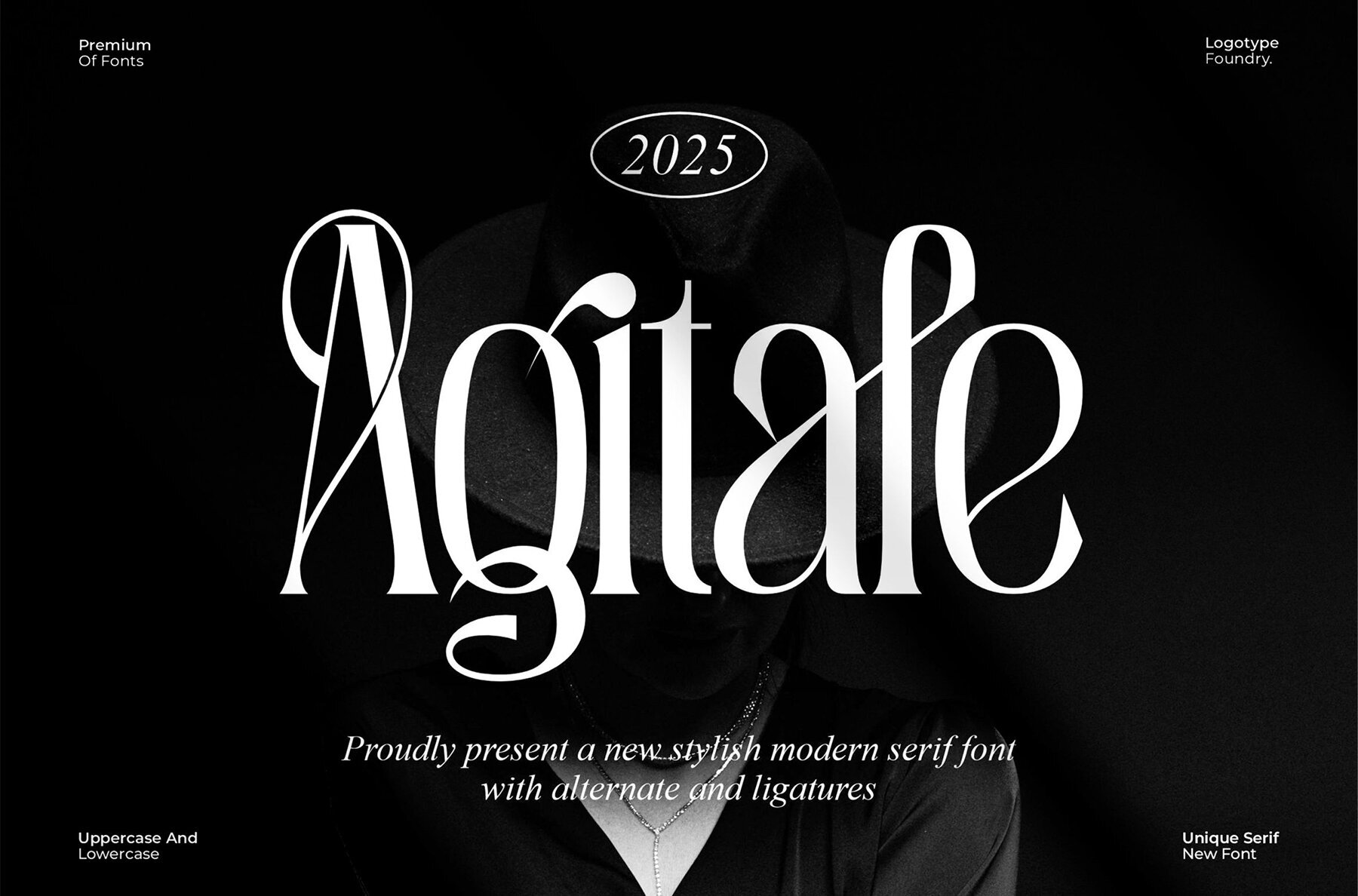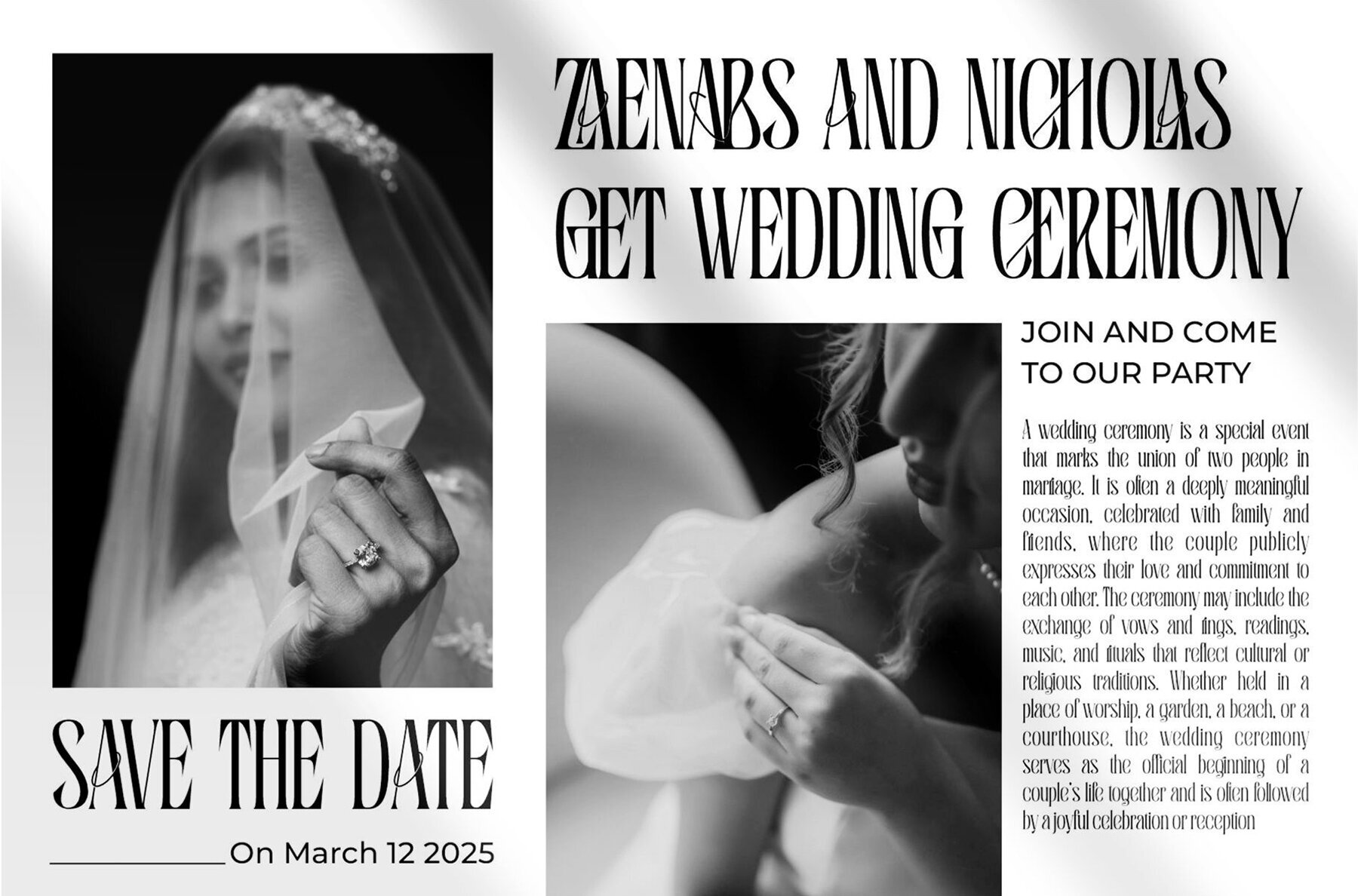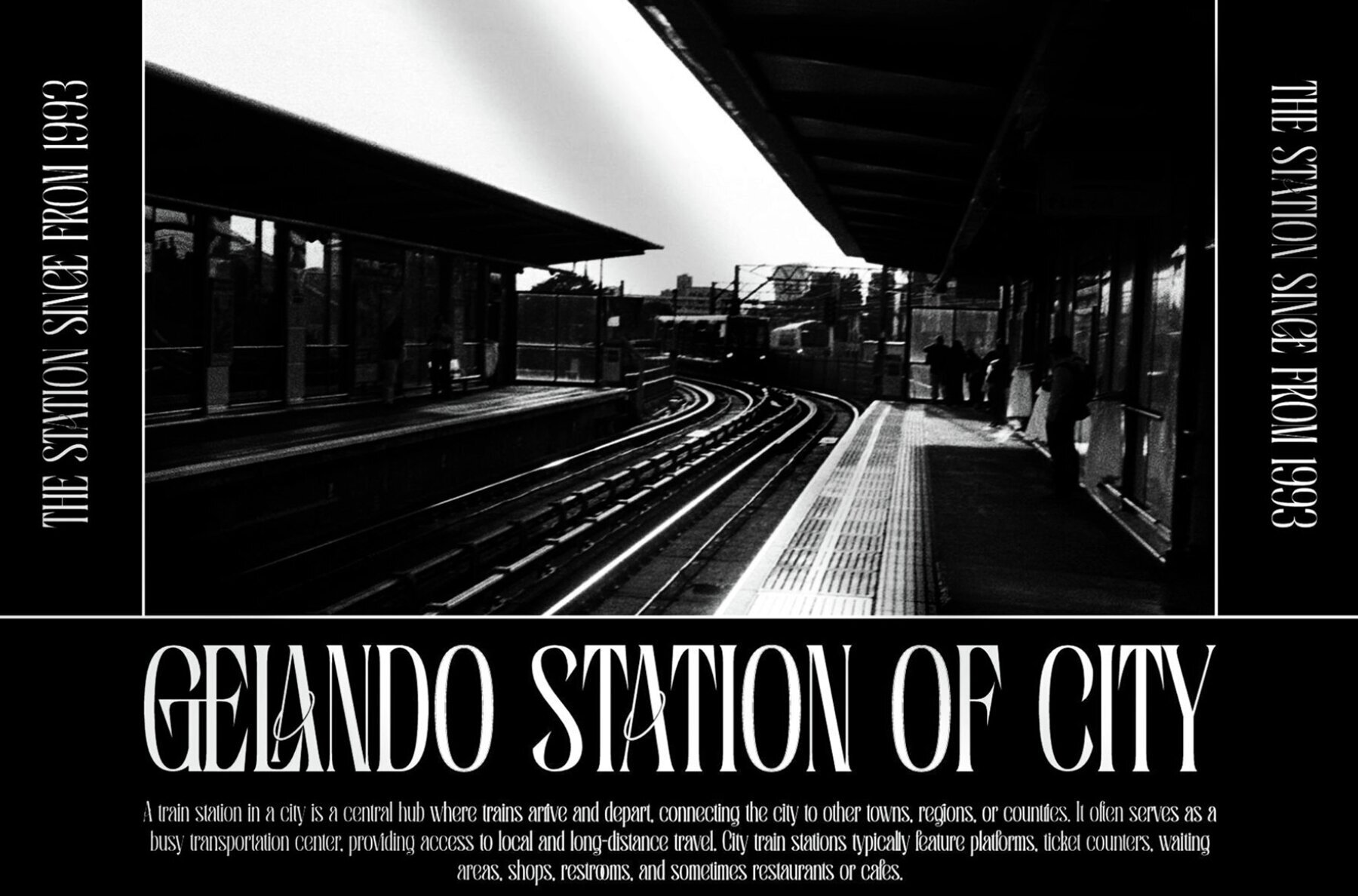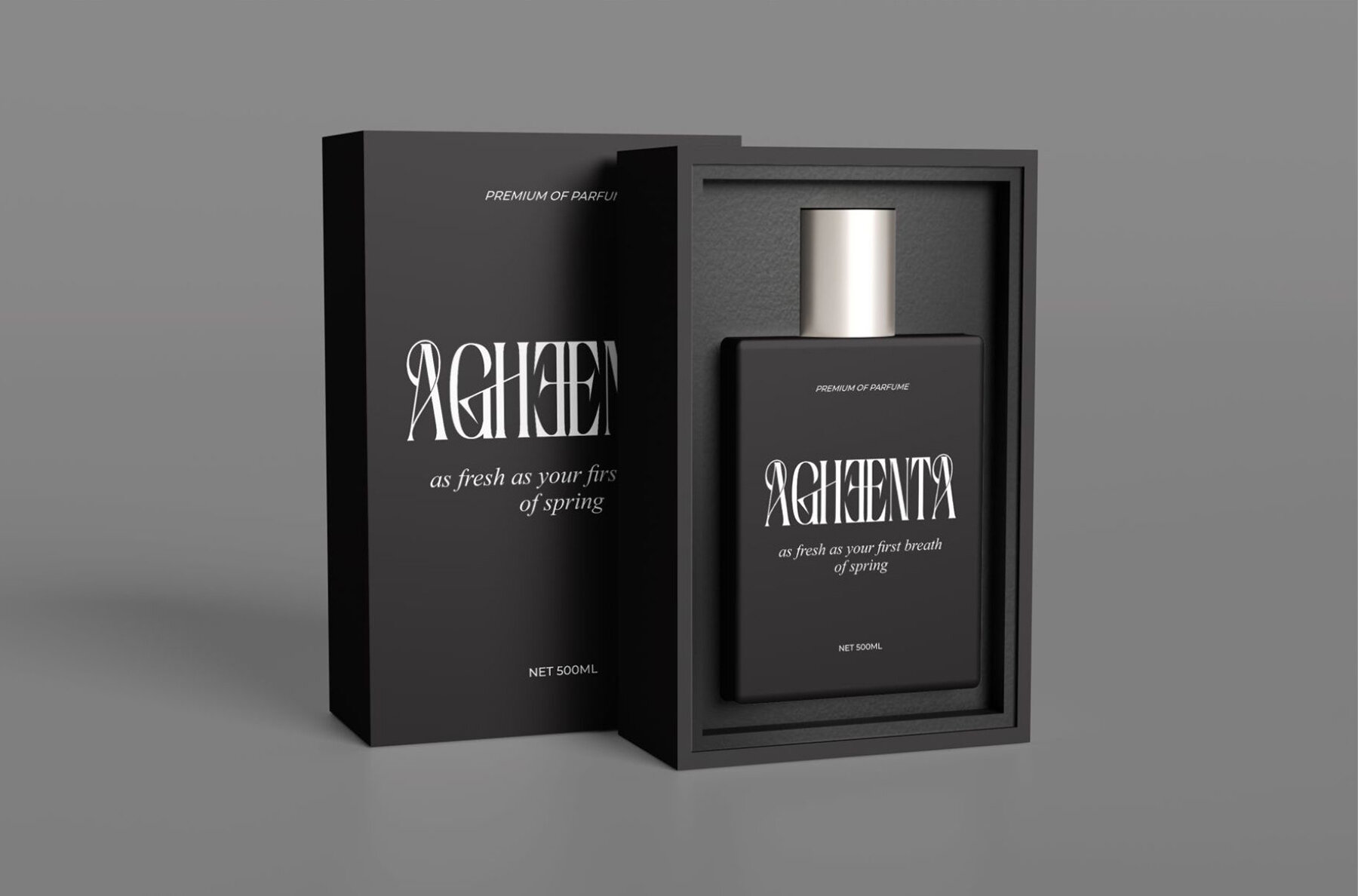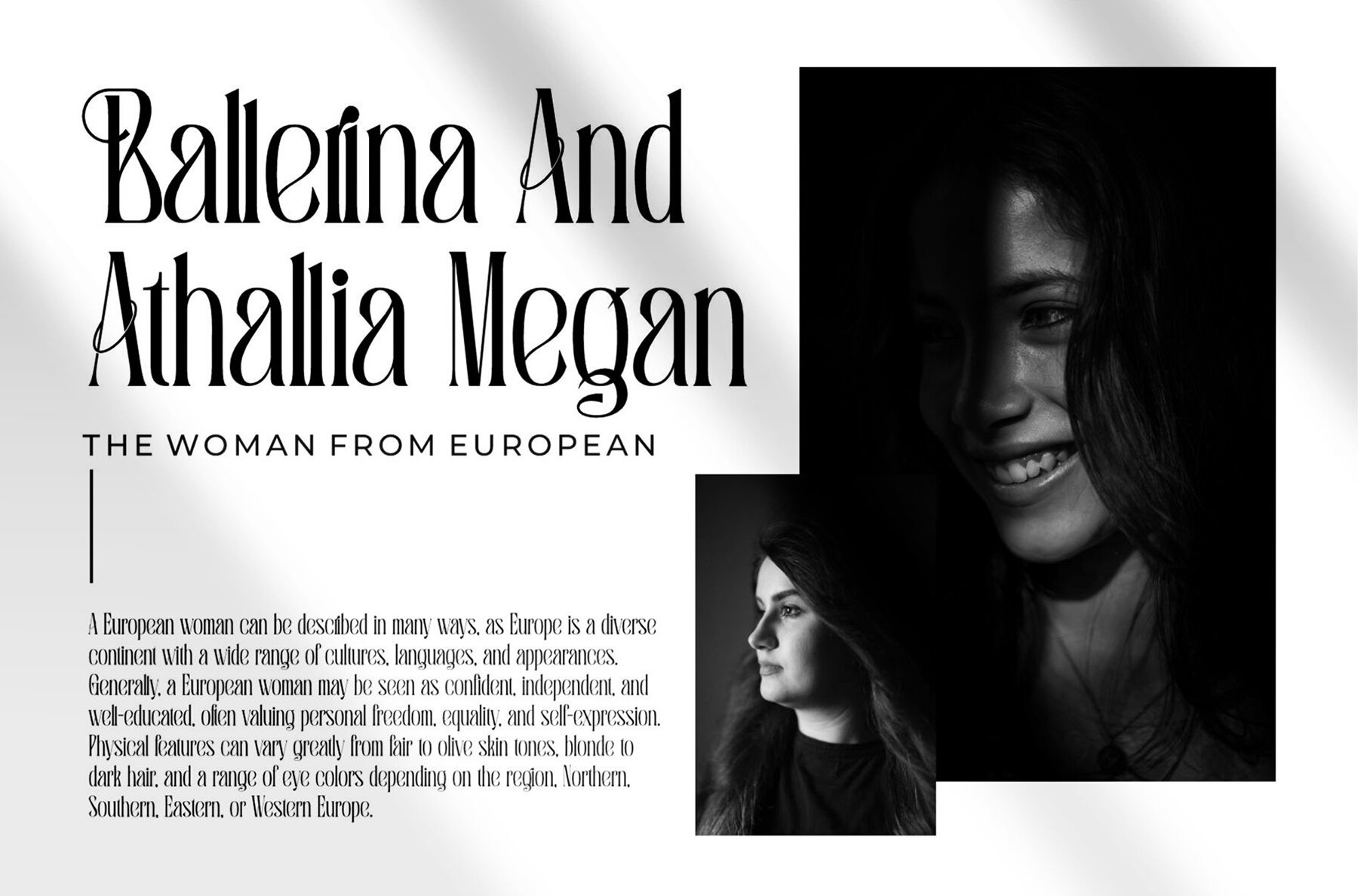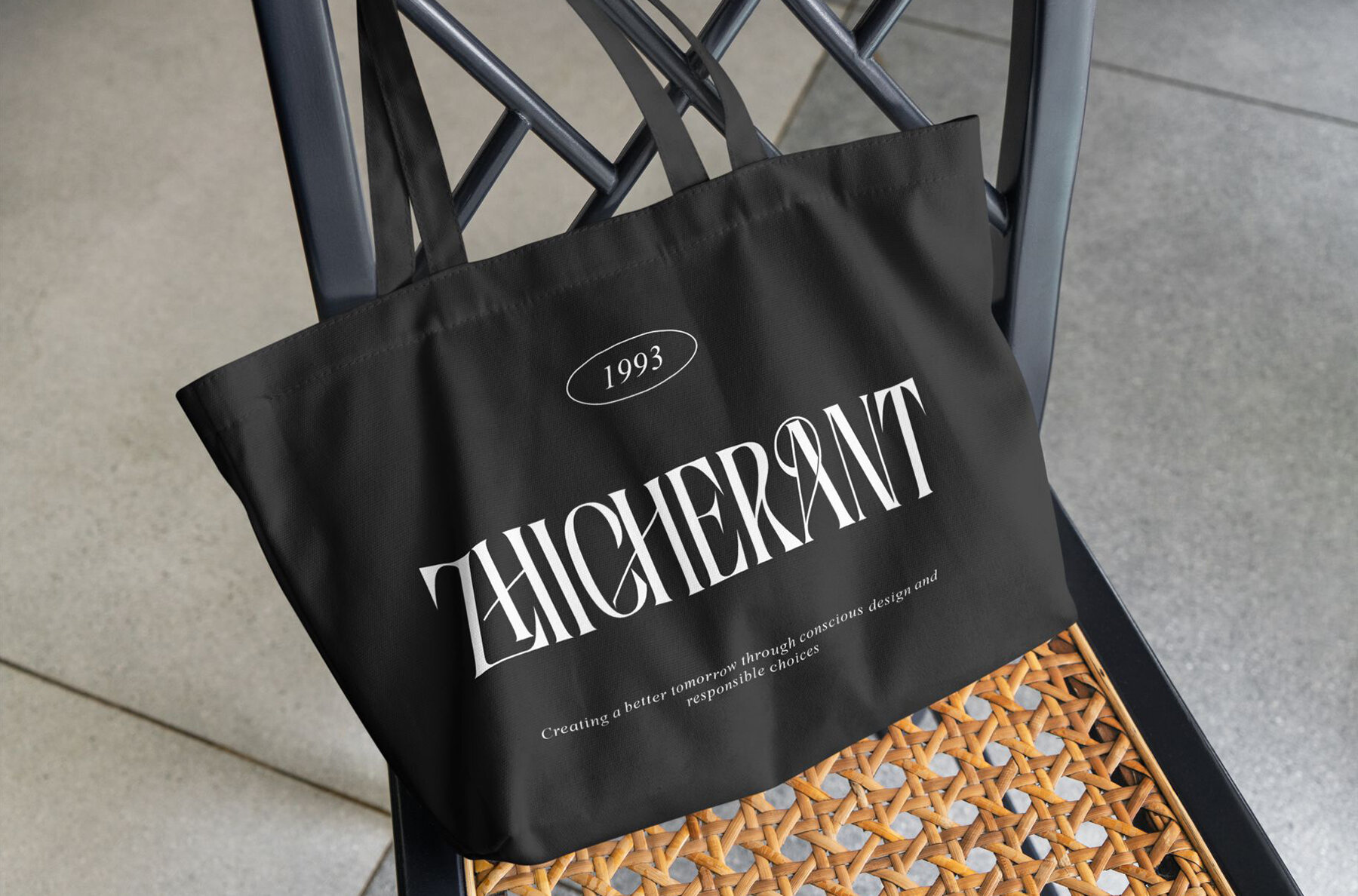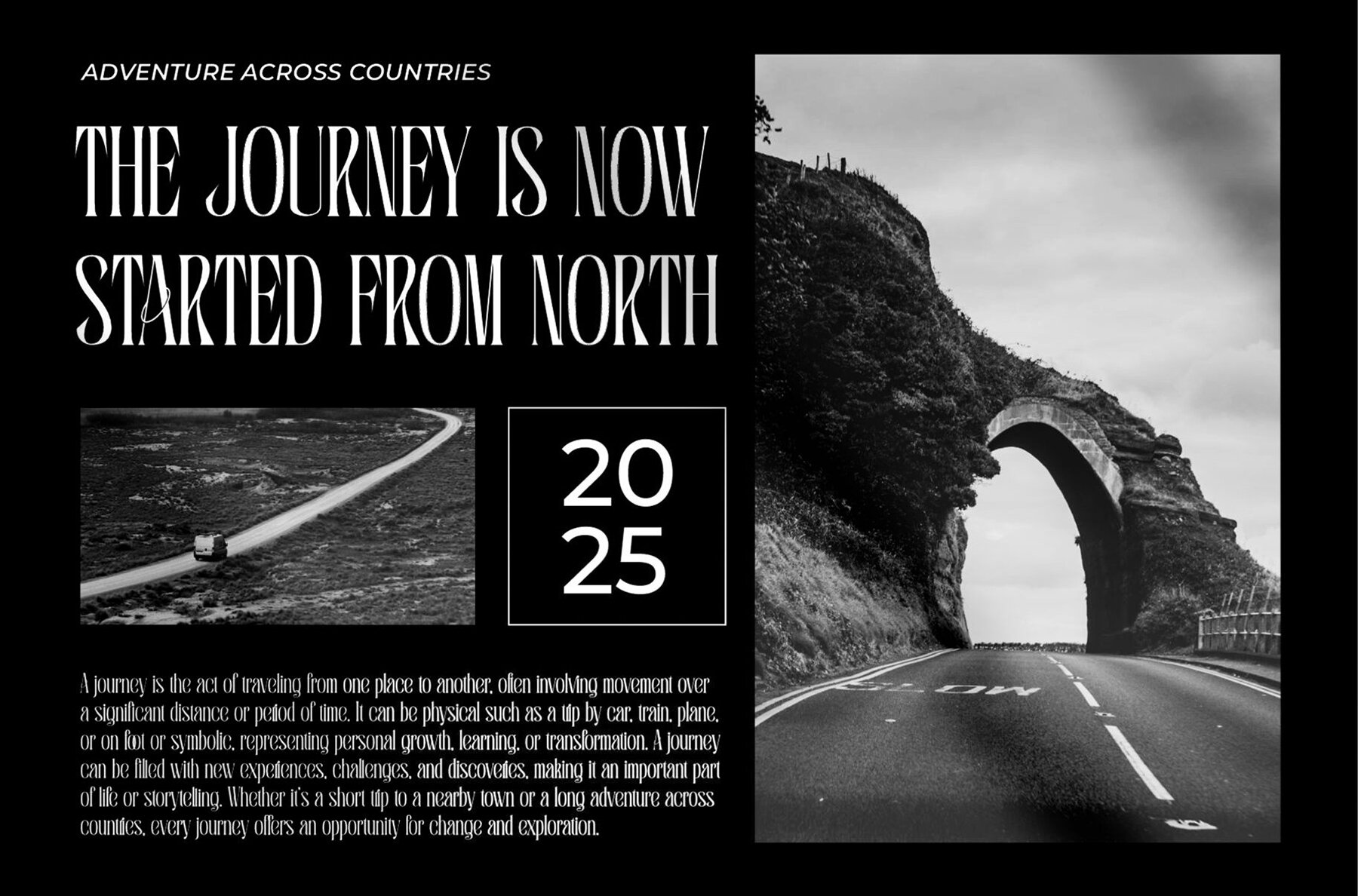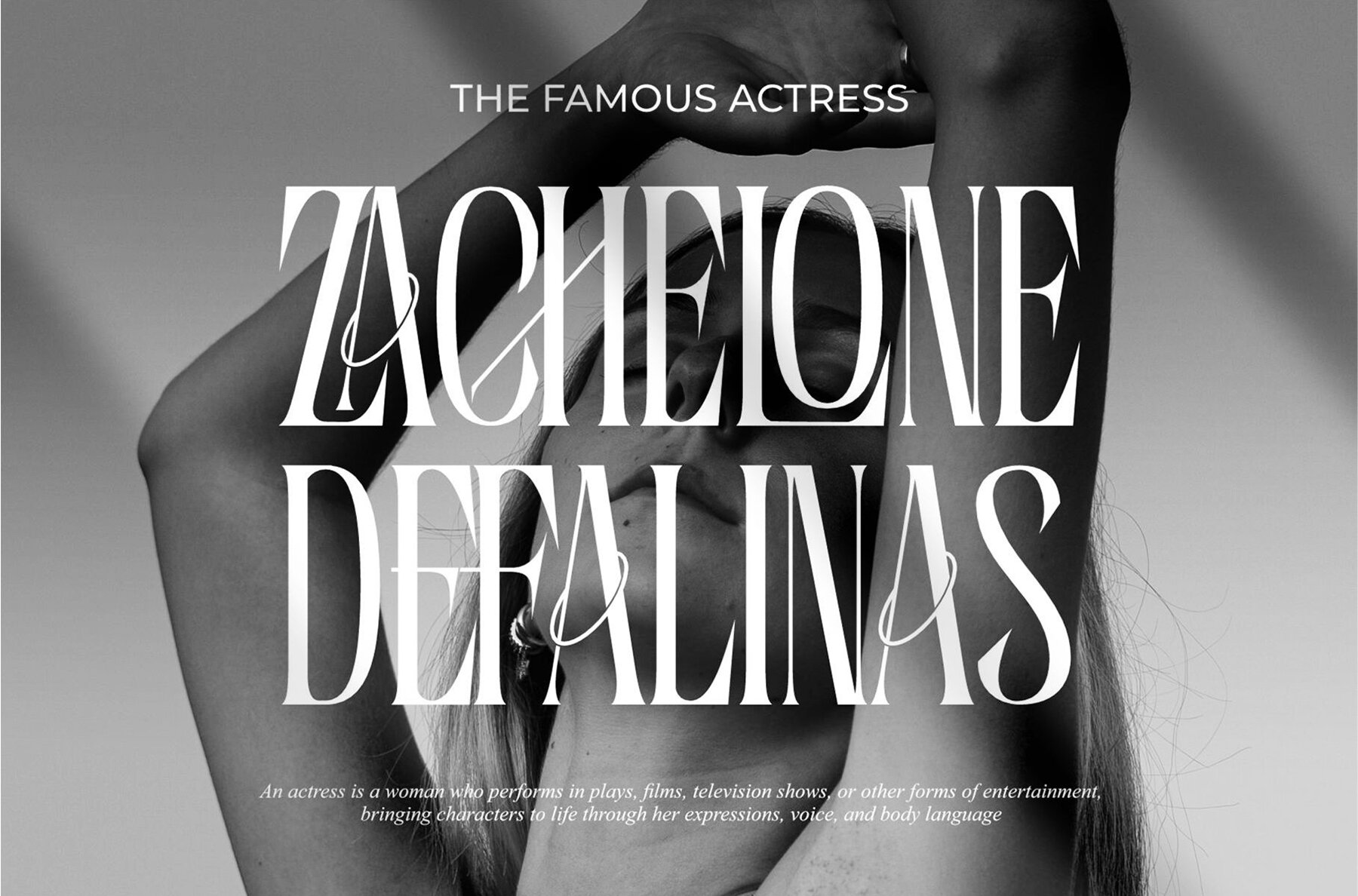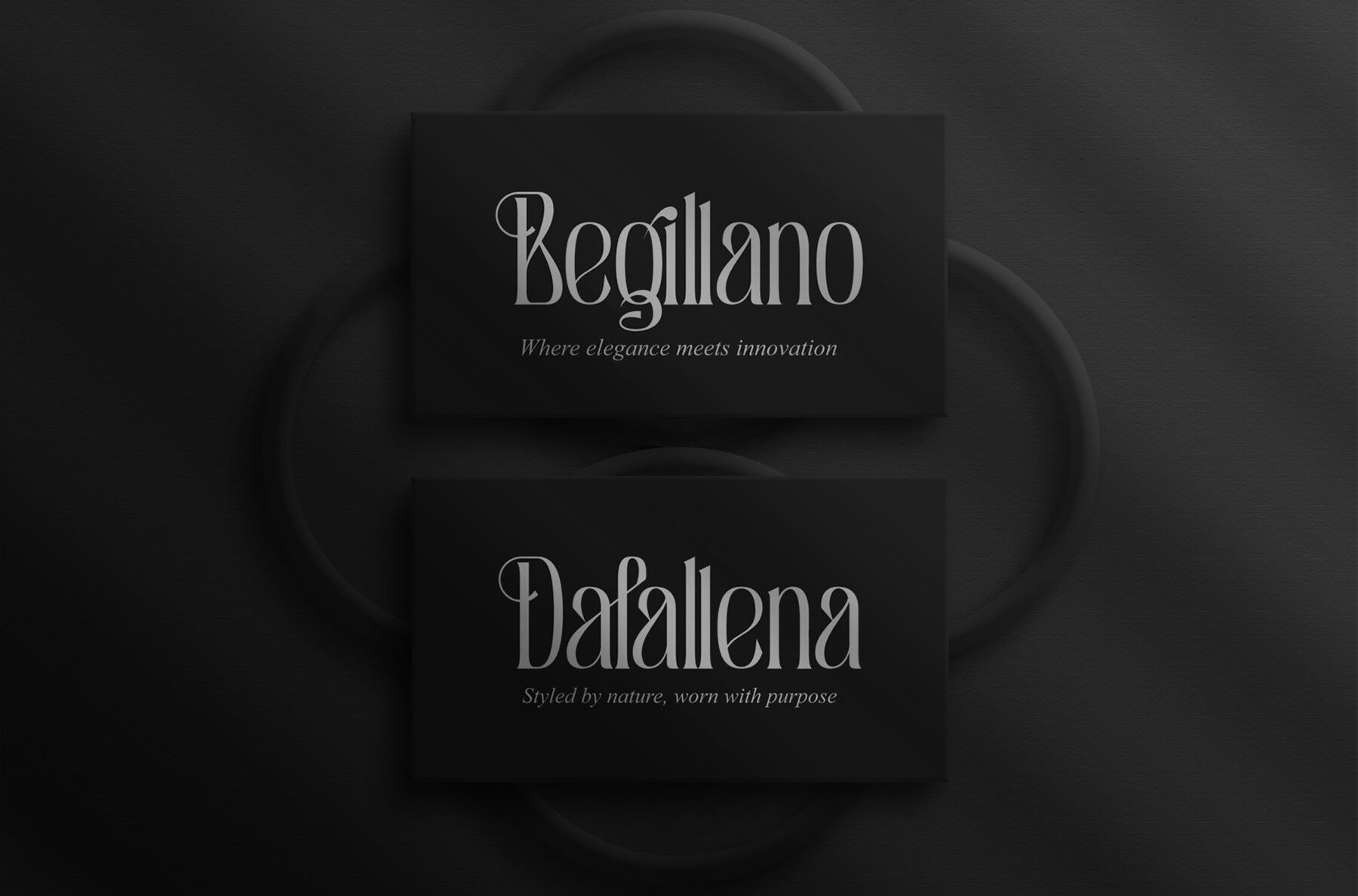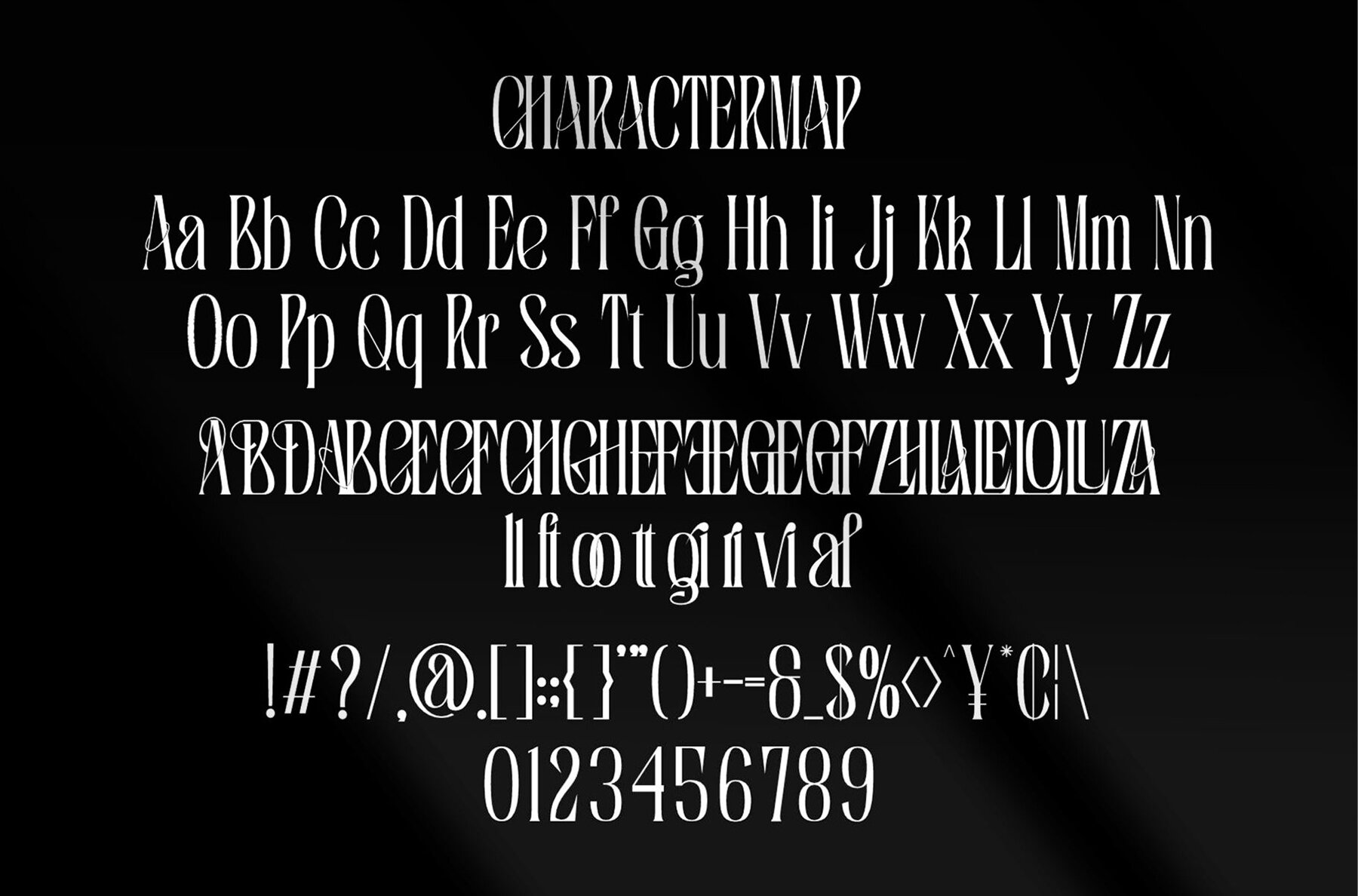
Agitafe Font
Agitafe
Agitafe is a modern serif font known for its trendy, bouncy, and charming display style. With a distinctive wood-inspired character, it perfectly complements a variety of designs. From invitation cards and company logos to movie titles and business cards, Agitafe is the ideal choice for adding a touch of creativity to your projects.Discover Agitafe by Slide